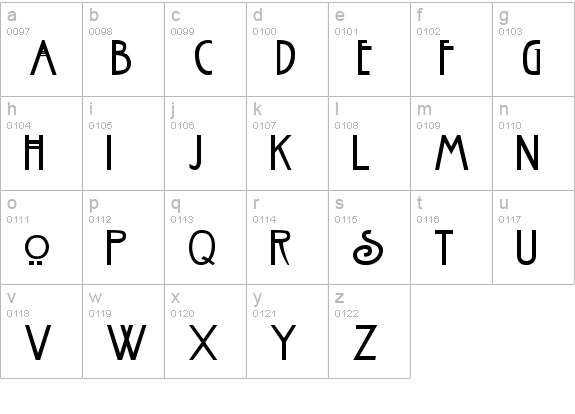
Reminel Font Details
Introducing Reminel, a stunningly elegant font that effortlessly combines sophistication with modernity. Crafted with meticulous attention to detail, Reminel is perfect for those seeking a font that exudes a sense of refined grace and timeless beauty. With its sleek and clean lines, Reminel captivates readers, drawing them in with its effortlessly legible charm. Whether used for branding, editorial design, or any creative project, this font is sure to leave a lasting impression. What sets Reminel apart is its versatility, making it suitable for a wide range of design applications. From delicate wedding invitations to eye-catching logos, this font adapts seamlessly to any context, making it a must-have for designers and creatives alike. But what truly sets Reminel apart is its availability – it's completely free! Yes, you read that right. Reminel is freely available to download at FontsMarket.com, ensuring that you can elevate your designs without breaking the bank. So why wait? Embrace the elegance and sophistication of Reminel and let your creativity soar to new heights. Download this remarkable font today and experience the beauty of free expression in your designs.